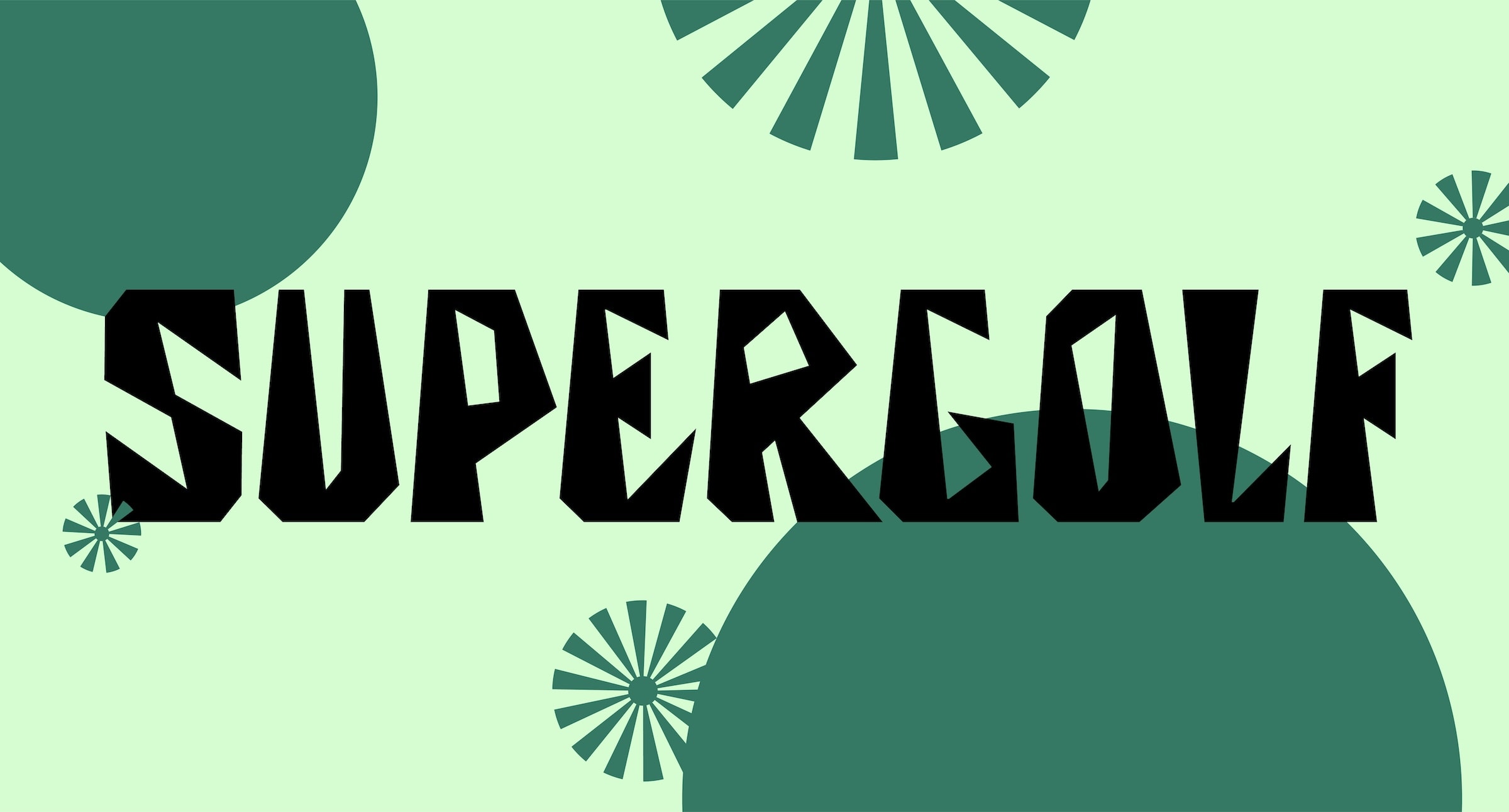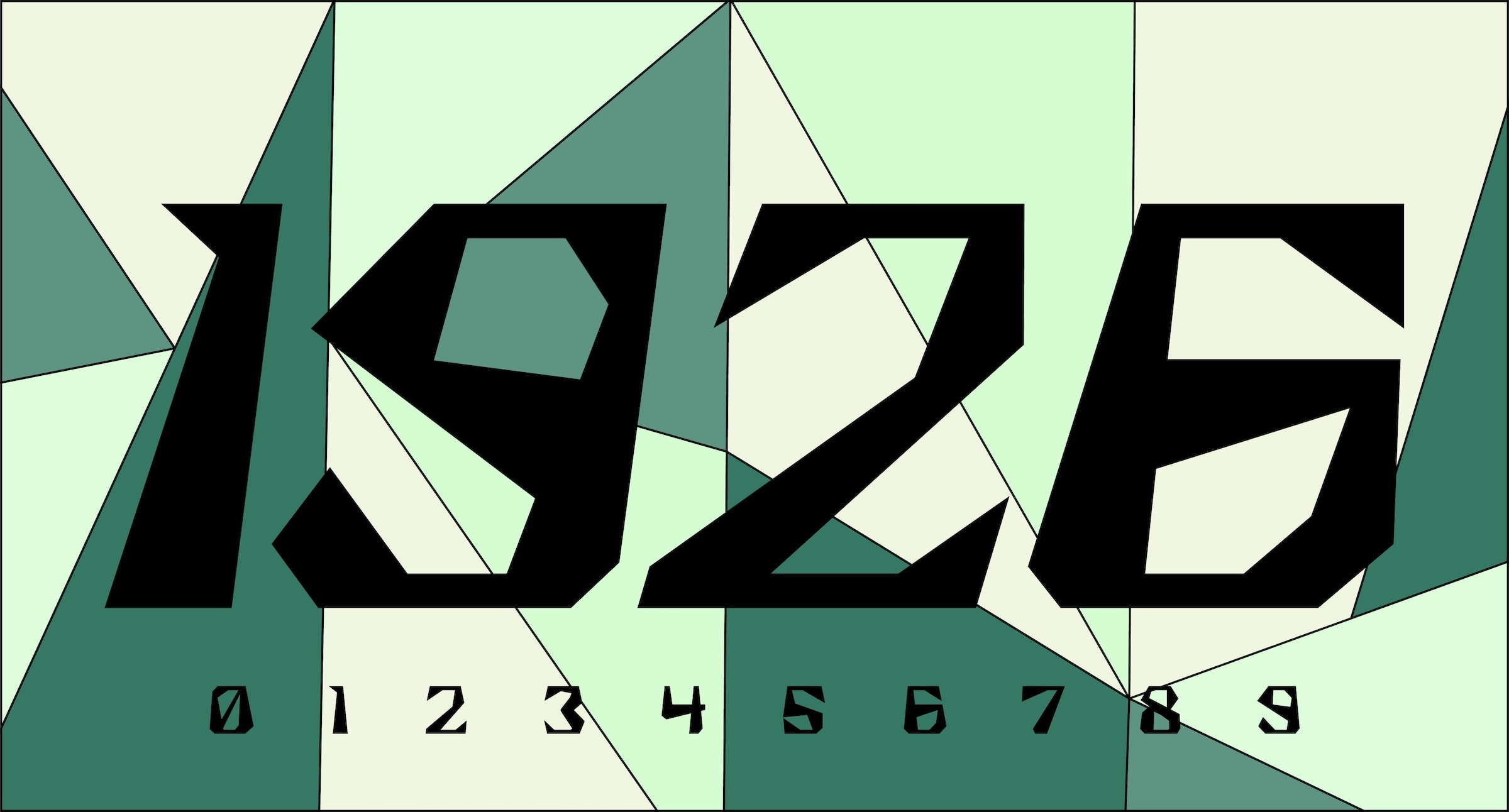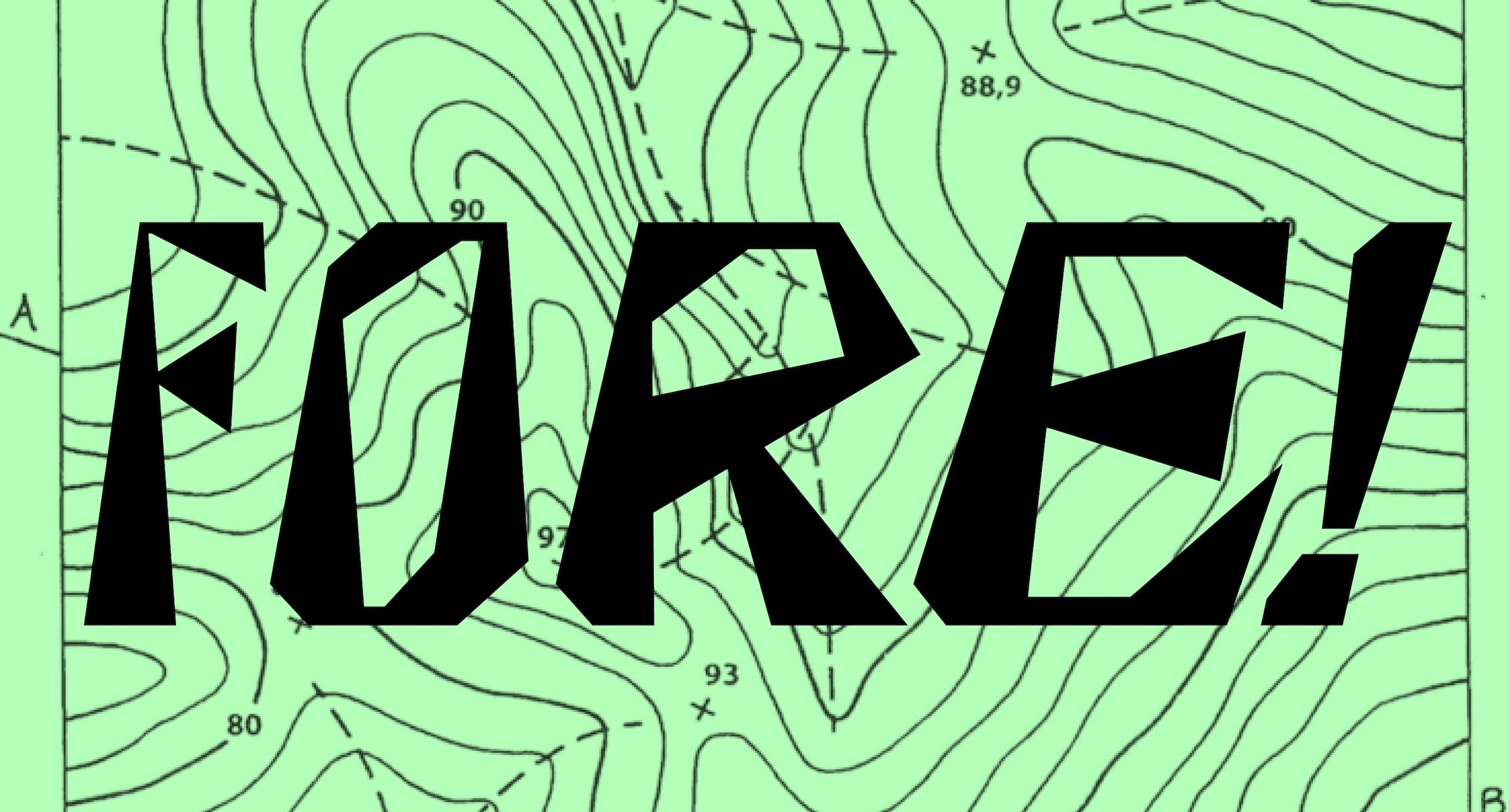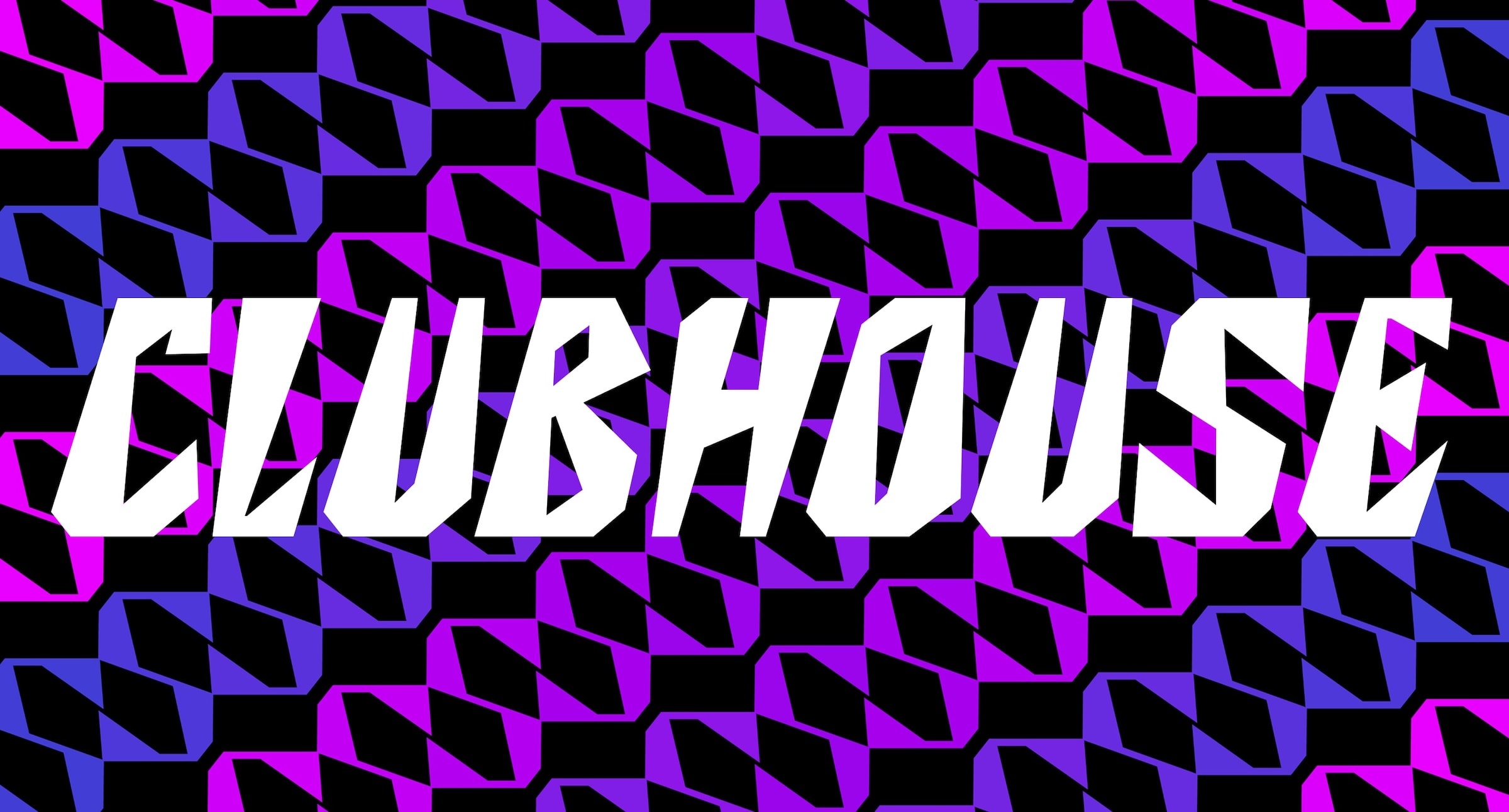
Supergolf
Supergolf is a sharp, angular display typeface with no curves and a fixed cap height. Inspired by Cubist-influenced lettering from a 1926 French golf resort poster, it reinterprets vintage elegance through a contemporary lens. Fast, angular, and undeniably chic, Supergolf brings a bold edge to modern typography. As a variable font, Supergolf offers three dynamic axes—weight, width, and slant—allowing letterforms to expand, contract, and shift diagonally, all while maintaining its signature rigid geometry.